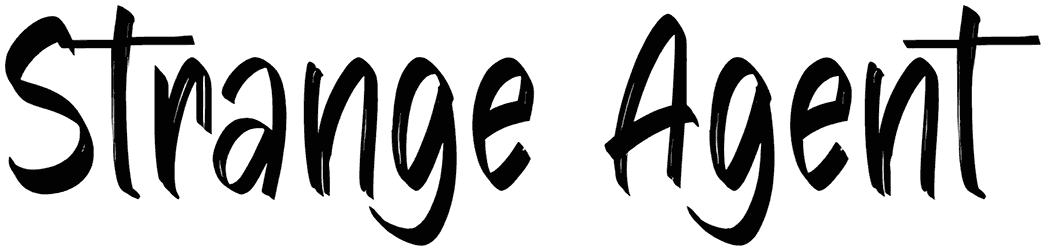
Strange Agent Font
Strange Agent is a script lettering font with a natural and intriguing vibe. This brush font would be a modern show for your creative projects, such as posters, covers, business cards, or more of the same. Even though Strange Agent doesn’t possess numbers, it is still able to make your design reflect a stylish and urban feeling.